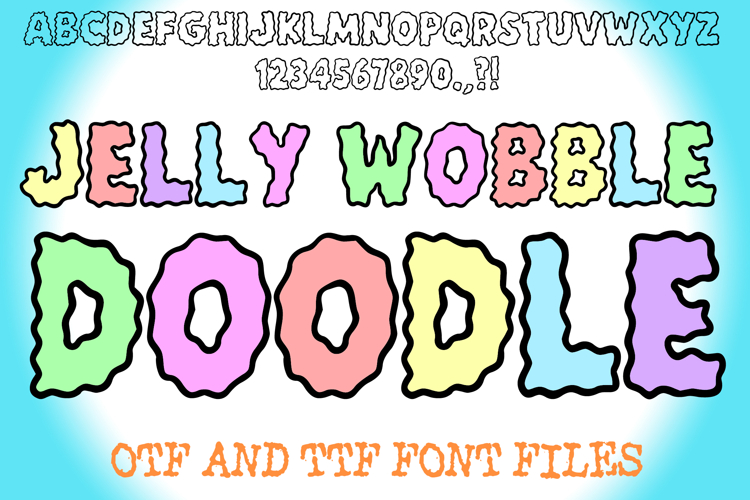
Jelly Wobble Doodle Font Fun Wavy Bubble Typeface Quirky
Give your designs a dose of energetic charm with the Jelly Wobble Doodle Font! This handmade display typeface features bold, "puffy" characters defined by highly irregular, wavy outlines that look like they are shaking or vibrating. The hand-drawn, "wobbly" aesthetic gives every word an organic and playful feel, making it perfect for projects that need to stand out with a sense of movement.
Designed for maximum personality, this font is ideal for creators looking for a clean outline style that still feels artisanal and "doodled". Whether you are creating vibrant event posters, quirky branding, or custom stickers, the Jelly Wobble Doodle Font provides a cohesive and high-impact look.